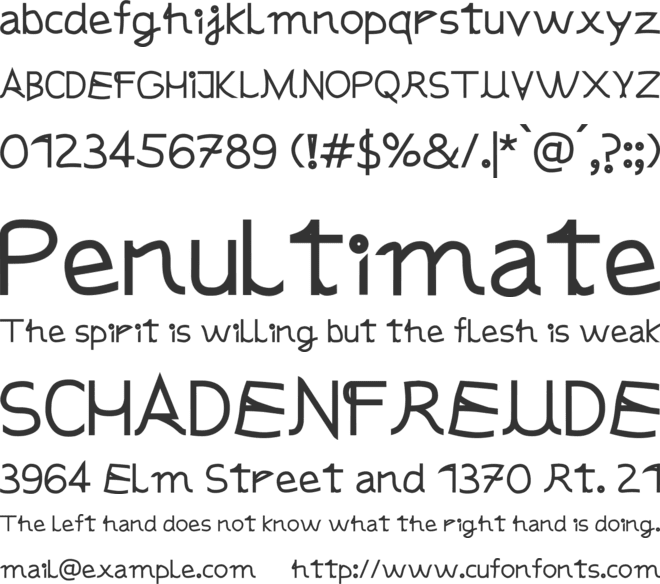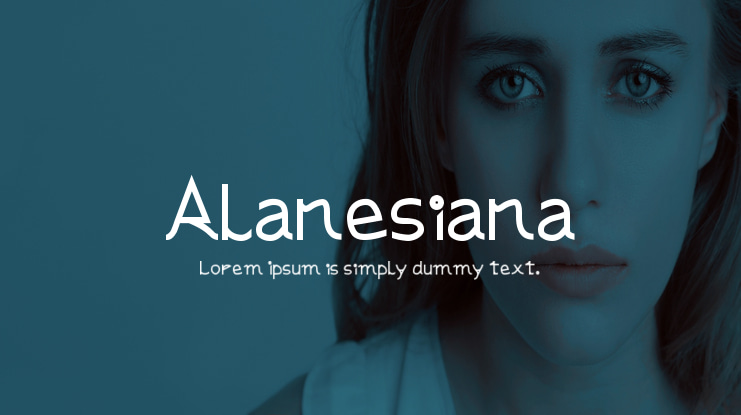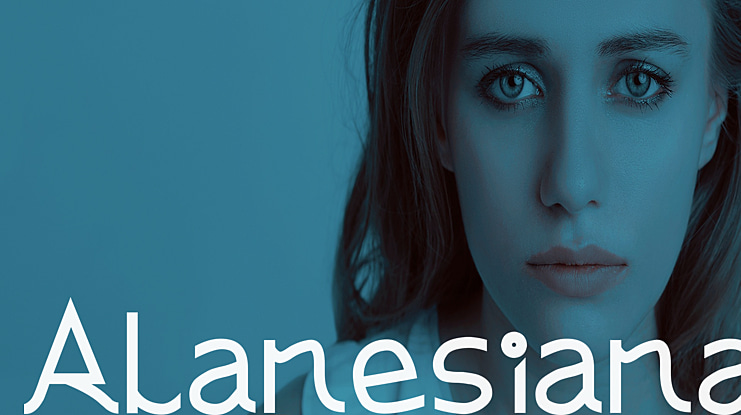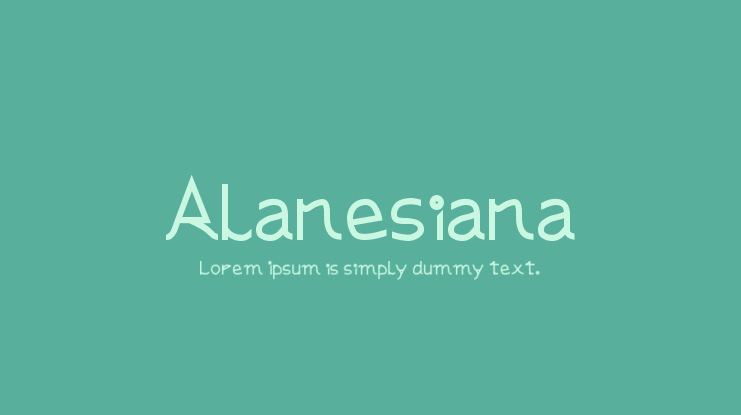
Alanesiana Font
Alanesiana is a font created in accordance with the idea to read the text in a slightly insecure form, and supports exactly 5650 characters. Each character has its own character, looks different from the rest, but all are made in a similar style and have a similar thickness, so the text still looks consistent, making it perfect for longer texts as opposed to many other decorative fonts that tire the reader. What is important Alanesiana supports not only Latin alphabet but also Cyrillic, Greek, Hebrew, Armenian, Georgian and phonetic and mathematical symbols as well as some emoticons and other symbols , alphabets such as Coptic.